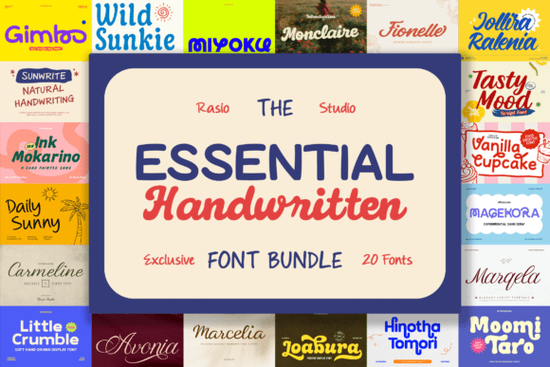
If you're looking for a collection of handwritten fonts that feel genuine not stiff, not overly polished, but warm and full of personality the Essential Handwritten Bundle Font is a practical choice. It’s designed for people who create real things: labels for small-batch jams, Instagram posts for a kids’ activity studio, packaging for handmade soaps, or invitations for a local bakery. The 20 fonts included aren’t just variations of the same style they range from soft, looping scripts to bold, chalky lettering, with casual uprights and bouncy display fonts in between. Each one was drawn by hand first, then carefully digitized to keep its natural rhythm and slight imperfections.
What kinds of projects work best with this bundle?
This isn’t a “one-size-fits-all” font pack and that’s a good thing. Because the styles vary, you can match tone to purpose without switching to another source. For example:
- Food and beverage brands think honey jars, coffee bags, or farmers’ market signage often benefit from friendly, slightly uneven lettering that suggests care and craft, not mass production.
- Children’s content, like printable coloring pages or classroom posters, gains warmth from rounded, open forms and gentle curves exactly what fonts like Lilyday or Pencil Pop deliver.
- Lifestyle and wellness creators use softer scripts for quote graphics or journal covers, where readability matters less than mood and several fonts here balance both.
- Print-on-demand sellers appreciate how well these fonts scale: they hold up on mugs, tote bags, and stickers without losing charm, even at smaller sizes.
How does it compare to other popular handwritten options?
You might already own or have seen fonts like Poris Font, which leans clean and modern, or Biggie Stencil Font, great for bold, industrial vibes. This bundle sits comfortably alongside them but fills a different need. Where Poris offers clarity and structure, and Biggie brings rugged energy, the Essential Handwritten Bundle Font gives you approachability and spontaneity. It’s also more stylistically diverse than single-font releases like Beloved Botanical Font, which focuses on delicate, nature-inspired script.
If you’re building a brand identity and want flexibility across touchpoints say, a logo in one script, social captions in another, and product tags in a third this bundle lets you stay cohesive without repeating the same font everywhere. That’s why many small business owners pair it with broader collections like the Sans Serif Bundle Collection for contrast: a handwritten headline next to a clean sans-serif body text creates visual hierarchy without clashing.
One thing to keep in mind: because these are expressive handwritten fonts, some work better for headlines or short phrases than long paragraphs. For body copy, consider pairing with something legible like Poris or Biggie Stencil. That kind of thoughtful pairing is how small studios maintain consistency while keeping things fresh.
Who’s using this bundle right now?
We’ve seen it used by:
- A ceramicist adding custom stamps to her mugs and coasters,
- A homeschool mom designing weekly planner printables,
- A micro-bakery updating their Instagram story templates and label designs,
- A stationery seller creating seasonal sticker packs for Etsy.
All of them chose this bundle not because it’s the biggest or most expensive, but because it feels human and that shows up in how customers respond to their work.